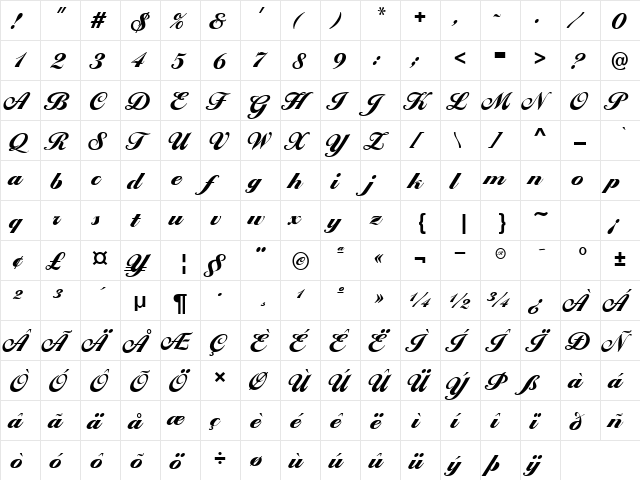
Ballantines Script EF Heavy Regular
Design Context for Ballantines Script EF Heavy Typeface
Ballantines Script EF Heavy flows with the natural rhythm of handwritten lettering, making it ideal for designs that call for warmth and personal expression.
Font Pairing: Combine Ballantines Script EF Heavy with a simple geometric sans for maximum contrast — the tension between flowing curves and clean structure is a classic typographic pairing.
Pro Tip: Pair Ballantines Script EF Heavy with a clean sans-serif for supporting text. The contrast between fluid script and geometric structure creates an elegant typographic hierarchy.